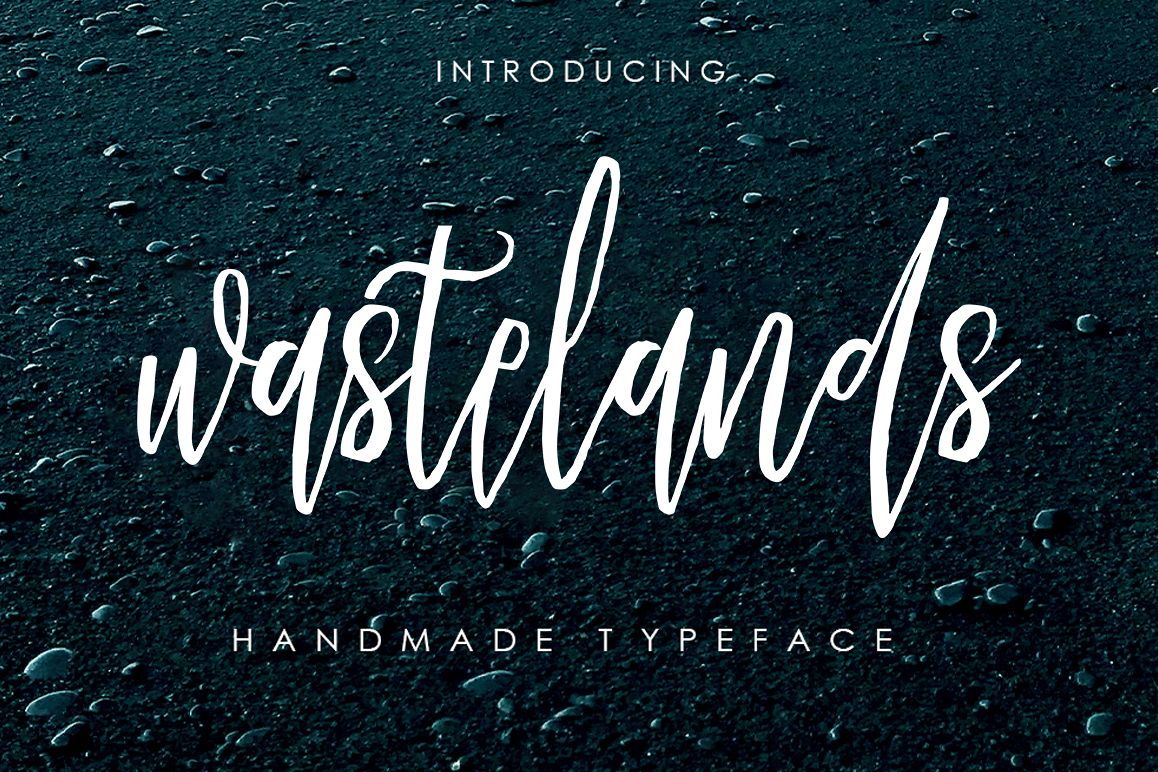
Wastelands
NTRODUCTORY SPECIAL OFFER (20%OFF)- FOR 1 WEEKSWELCOME ! the new Wastelands Script Font. It's an modern typeface with a tasty flow. Wastelands Script features alternate characters, including initial,& end swashes terminal, ligatures and International support for most Western Languages is included.This one should make your designs instantly professional and jaw-dropping! Be a perfect professional in a minute and start creating modern designs like ads, sales, logos, branding, posters, social media text overlays today!To enable the OpenType Stylistic alternates, you need a program that supports OpenType features such as Adobe Illustrator CS, Adobe Indesign & CorelDraw X6-X7, Microsoft Word 2010 or later versions. and there are additional ways to access alternates/swashes, using Character Map (Windows), Nexus Font (Windows), Font Book (Mac) or a software program such as PopChar (for Windows and Mac).How to access all alternative characters using Adobe Illustrator: